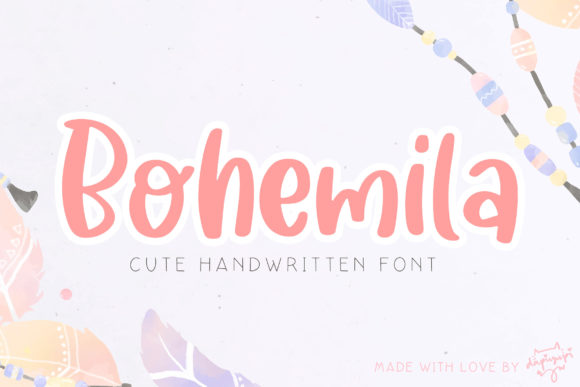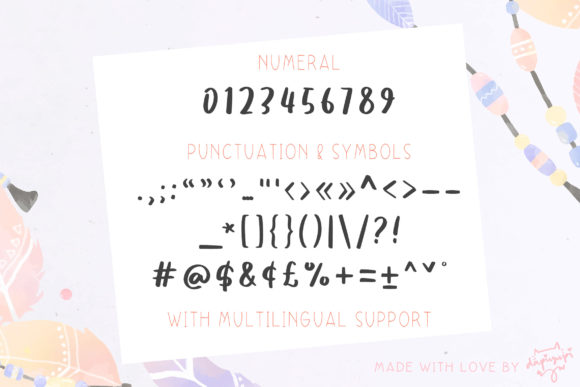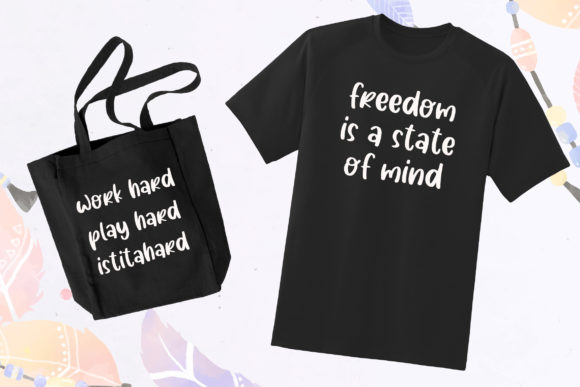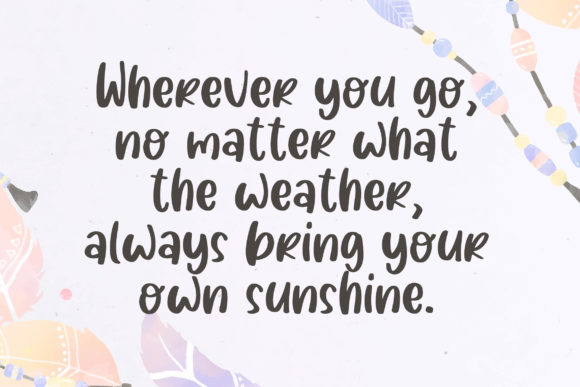
About Bohemila Font
Bohemila is a cute and quirky handwritten font. Sweet and playful, this typeface can elevate the look of any creation ranging from product packaging to business cards, and more!